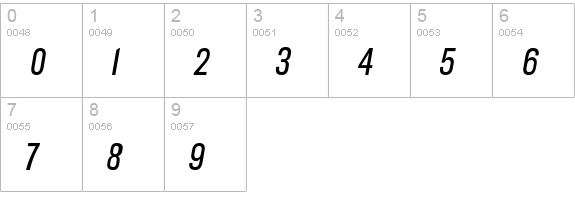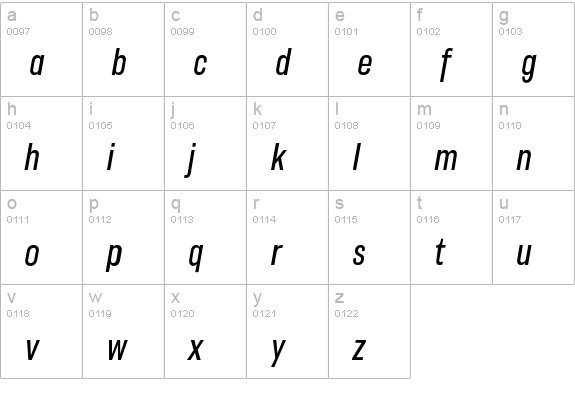
Americane Condensed Italic is a distinctive, condensed-width, italic variant in the Americane typeface family \xE2\x80\x94 well suited to design and typography projects.
Americane Condensed Italic is a stylish and modern font that exudes sophistication and elegance. Its sleek and slanted design adds a touch of flair to any project, making it perfect for conveying a sense of luxury and refinement. The italicized letterforms flow gracefully, creating a sense of movement and dynamism on the page. This versatile font is ideal for a wide range of design projects, from branding and advertising to editorial and web design. Whether you're looking to create sleek headlines or elegant body text, Americane Condensed Italic is sure to make a statement. Best of all, Americane Condensed Italic is available for free download at FontsMarket.com, making it easily accessible for designers and creatives looking to add a touch of sophistication to their work. Don't miss out on this opportunity to elevate your designs with this exquisite font.